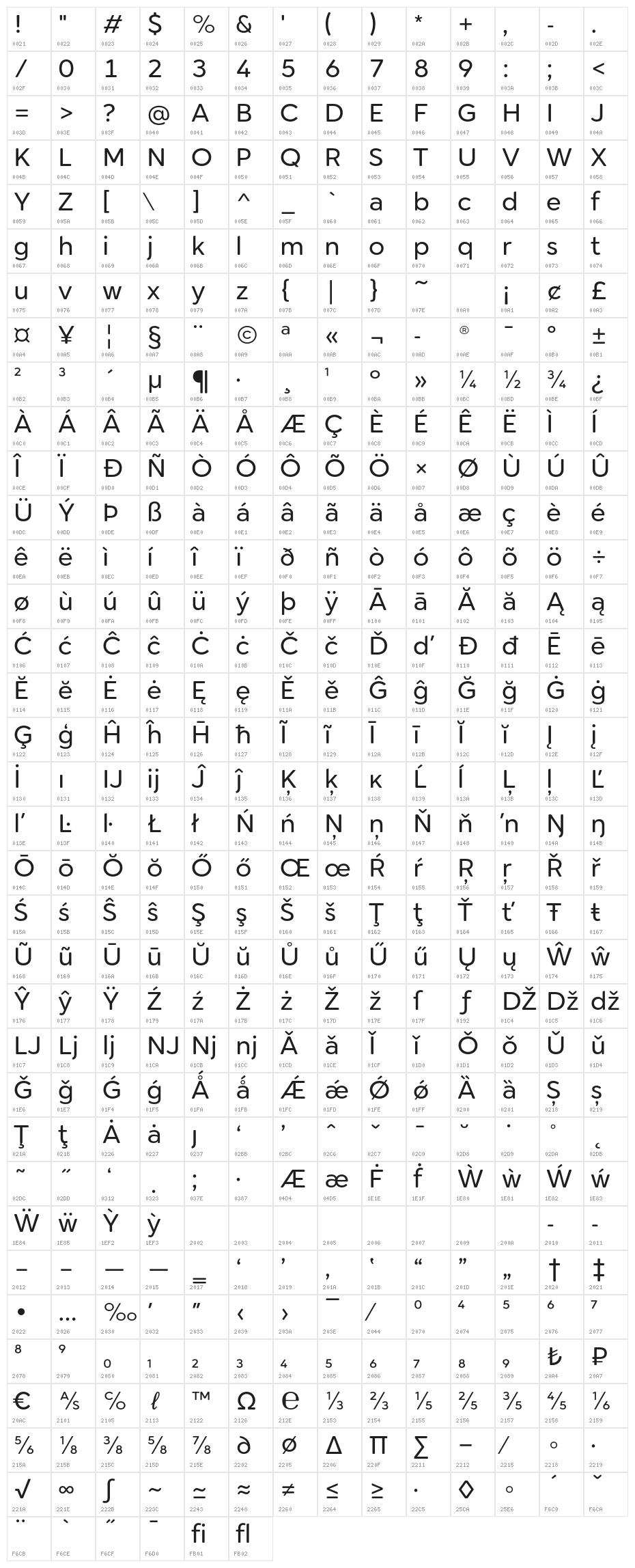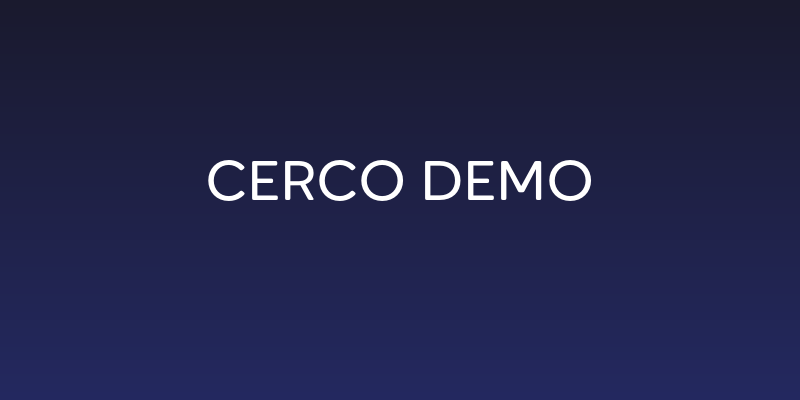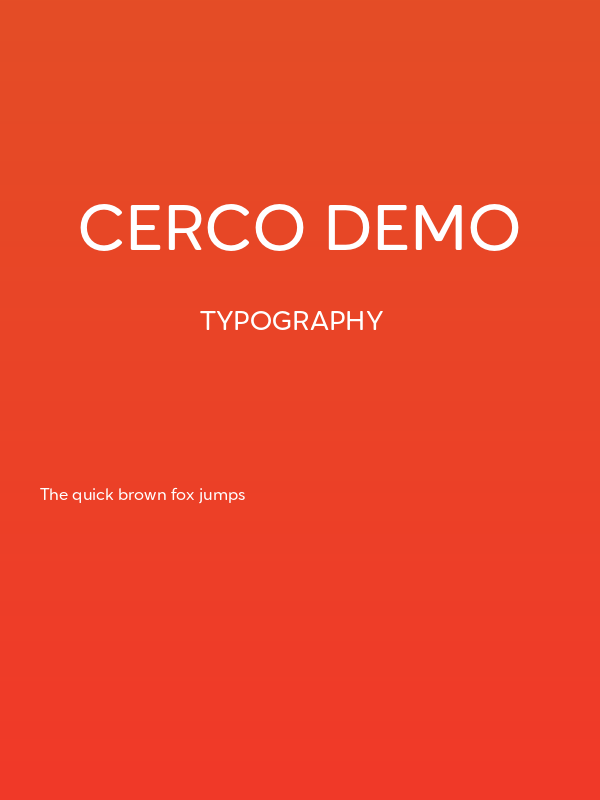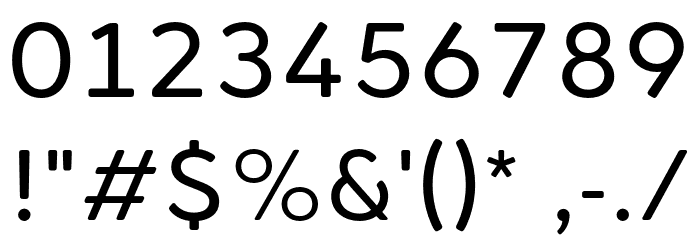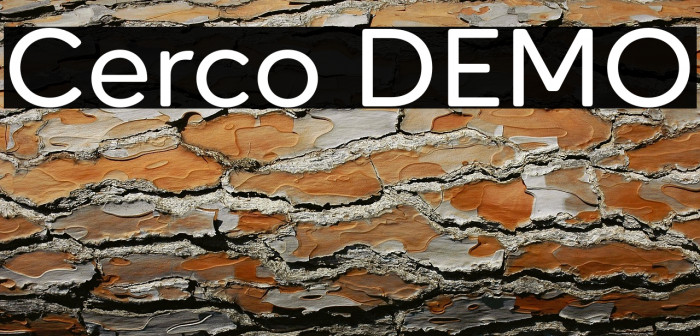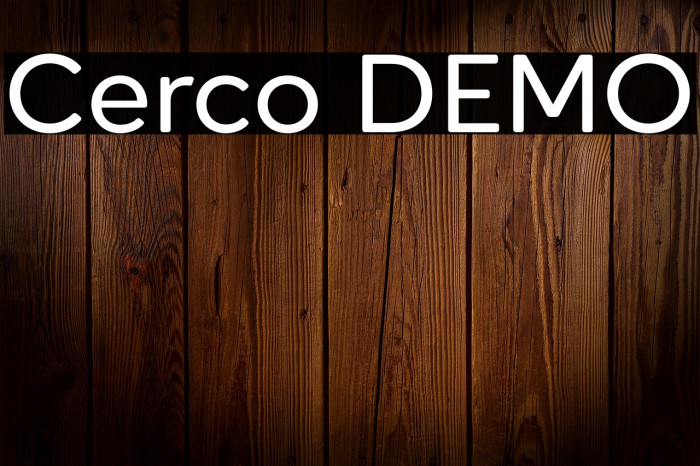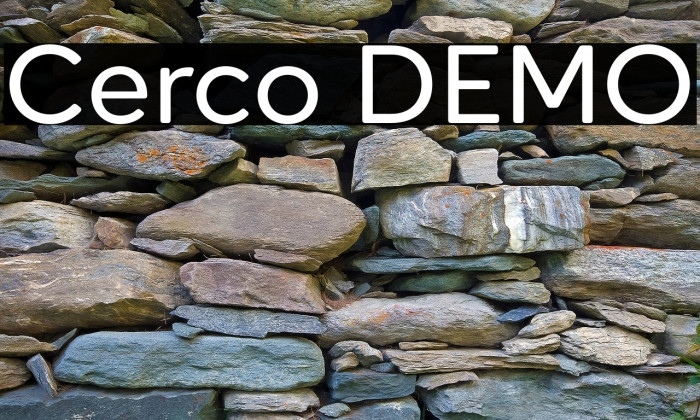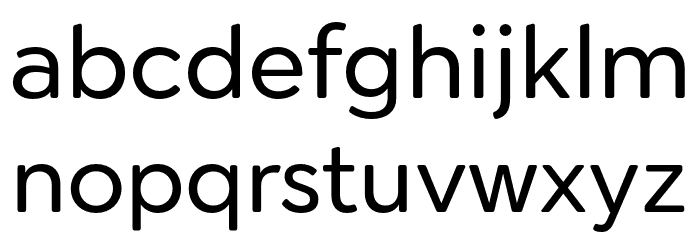
Cerco DEMO Font
Cerco DEMO Description
This font features a clean and modern sans-serif design, characterized by its simplicity and readability. The letters are evenly spaced with a consistent stroke width, providing a harmonious and balanced appearance. The uppercase and lowercase letters maintain a uniform height, contributing to its sleek and professional look. The numerals are clear and distinct, making them easy to read. Special characters are well-integrated, enhancing the font's versatility. This font is suitable for a wide range of applications, from digital interfaces to print media.
| Proposed Projects | Ideal for web design, corporate branding, user interfaces, and print materials. |